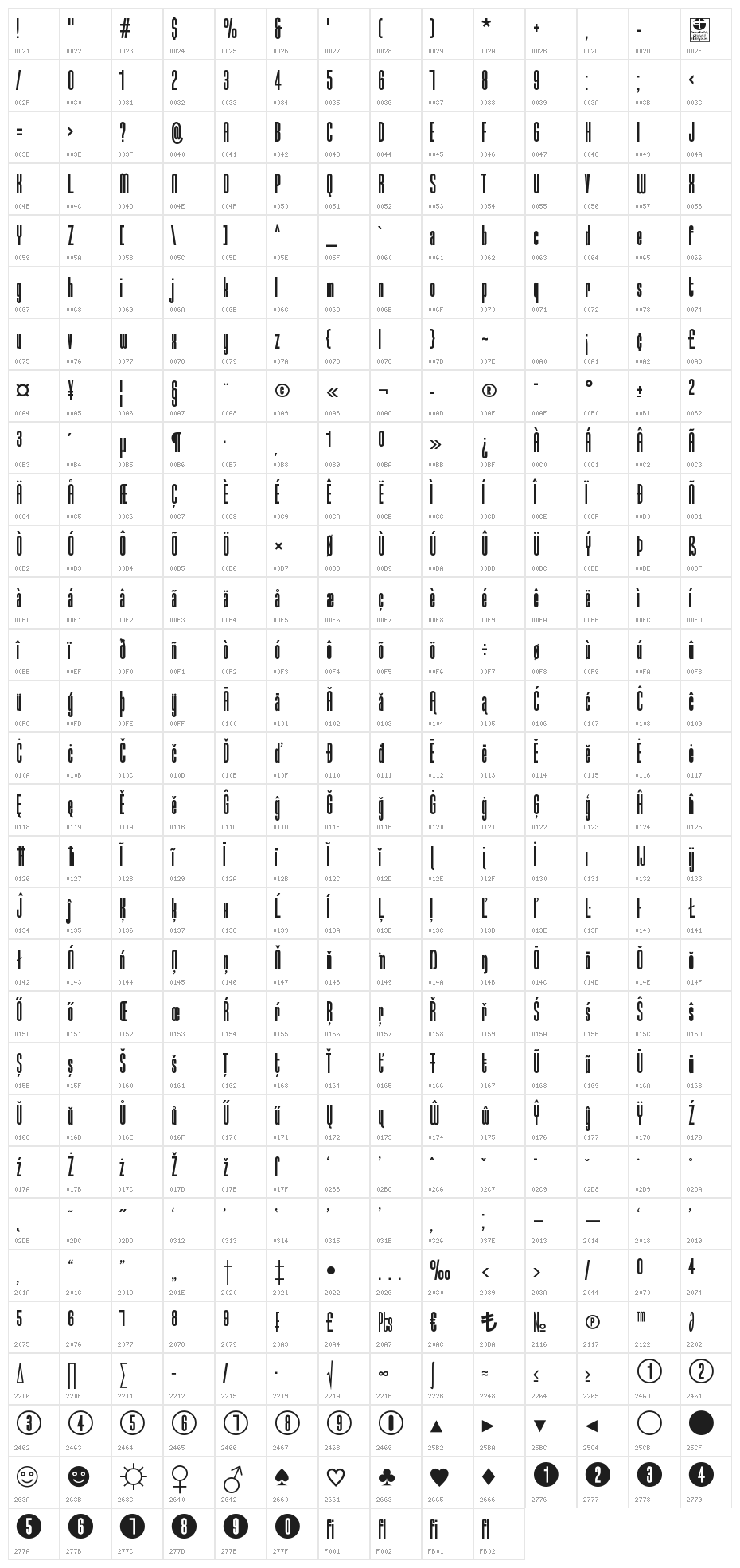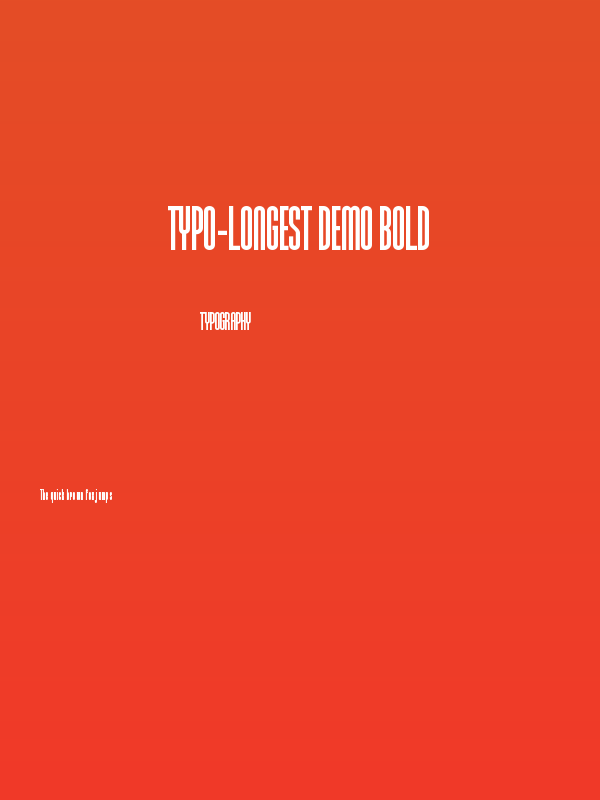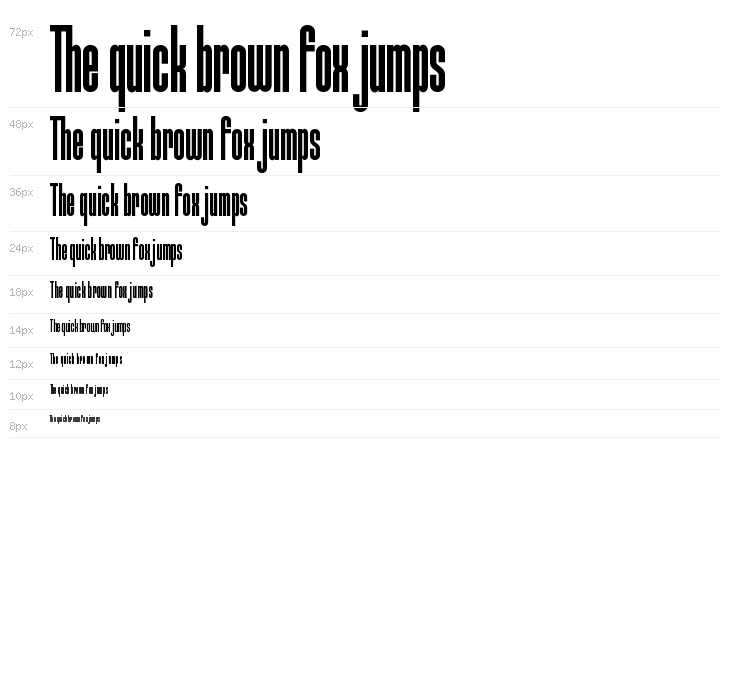
Typo-Longest Demo Bold Font
Typo-Longest Demo Bold Description
This font features a bold and elongated design with a strong vertical emphasis. The characters are tall and narrow, creating a striking and impactful appearance. The uppercase letters are particularly elongated, while the lowercase letters maintain a consistent height, contributing to a cohesive look. The numbers and special characters follow the same design principles, ensuring uniformity across all glyphs. The font's bold weight and condensed width make it ideal for making a statement, while the clean lines and lack of serifs give it a modern and sleek aesthetic.
| Proposed Projects | Ideal for headlines, posters, and branding projects where a strong visual impact is desired. |